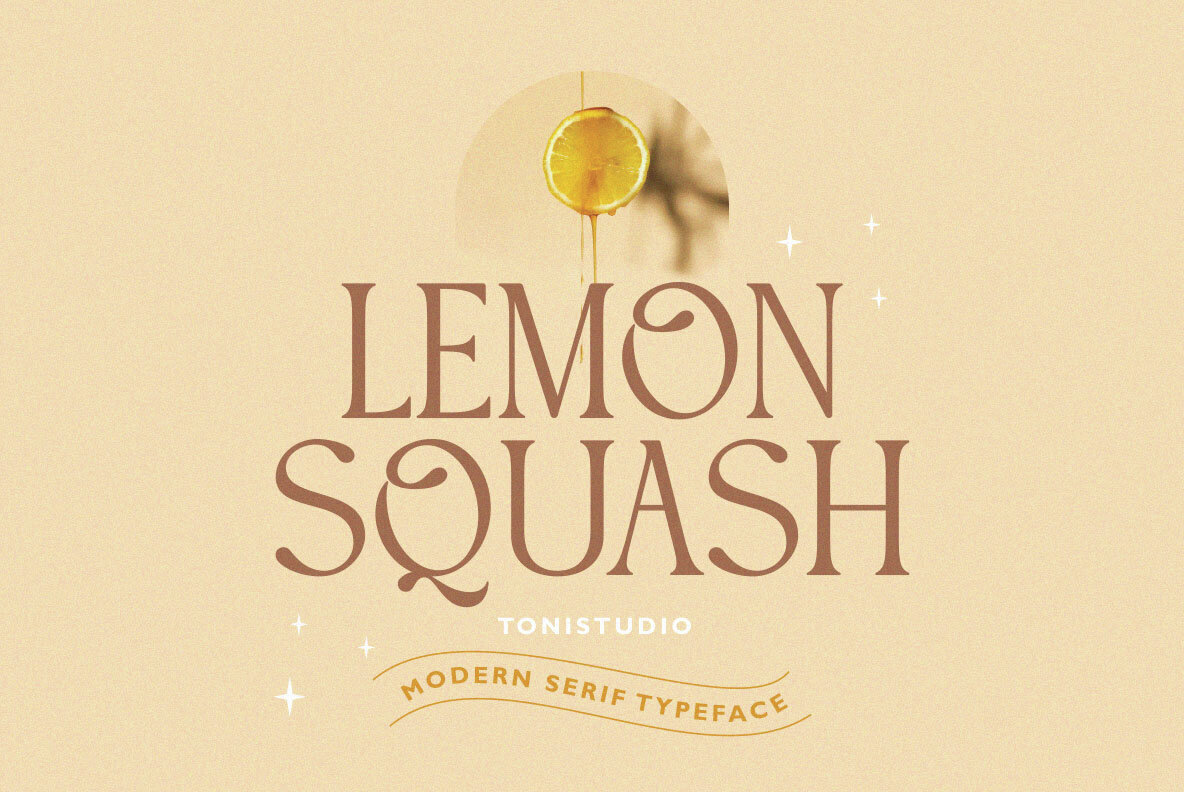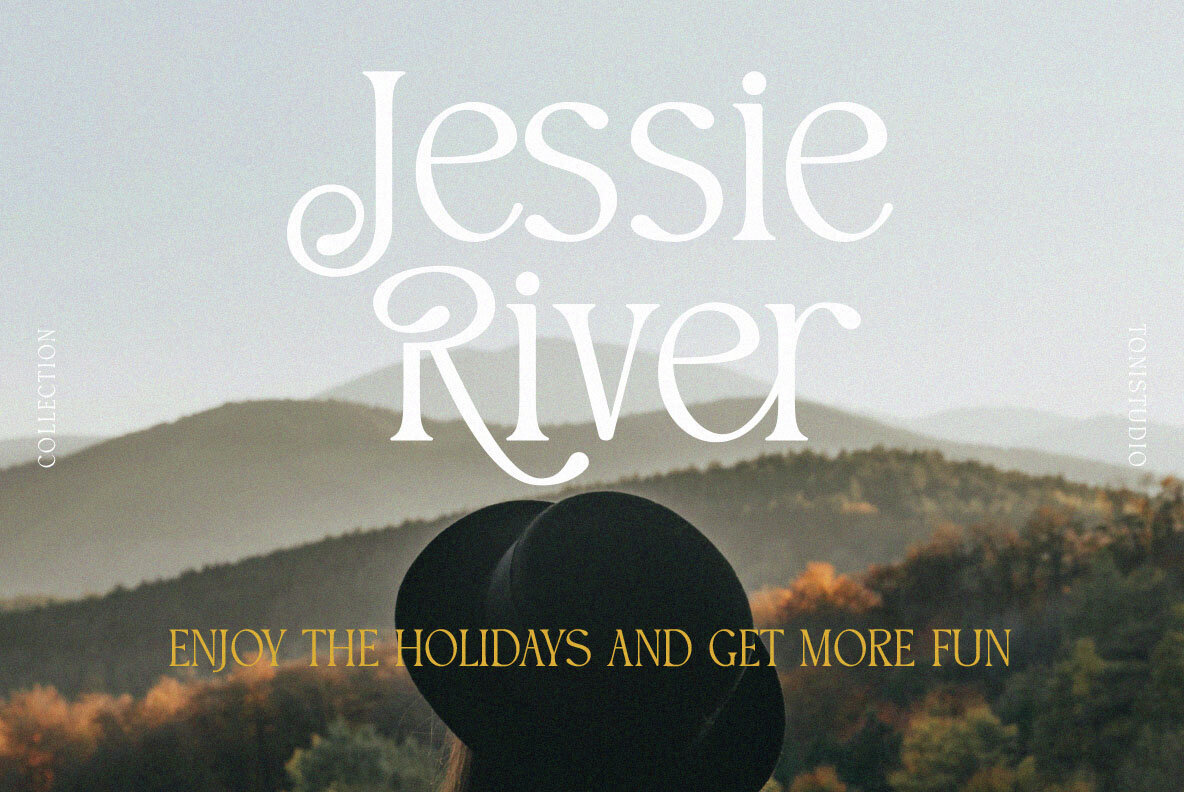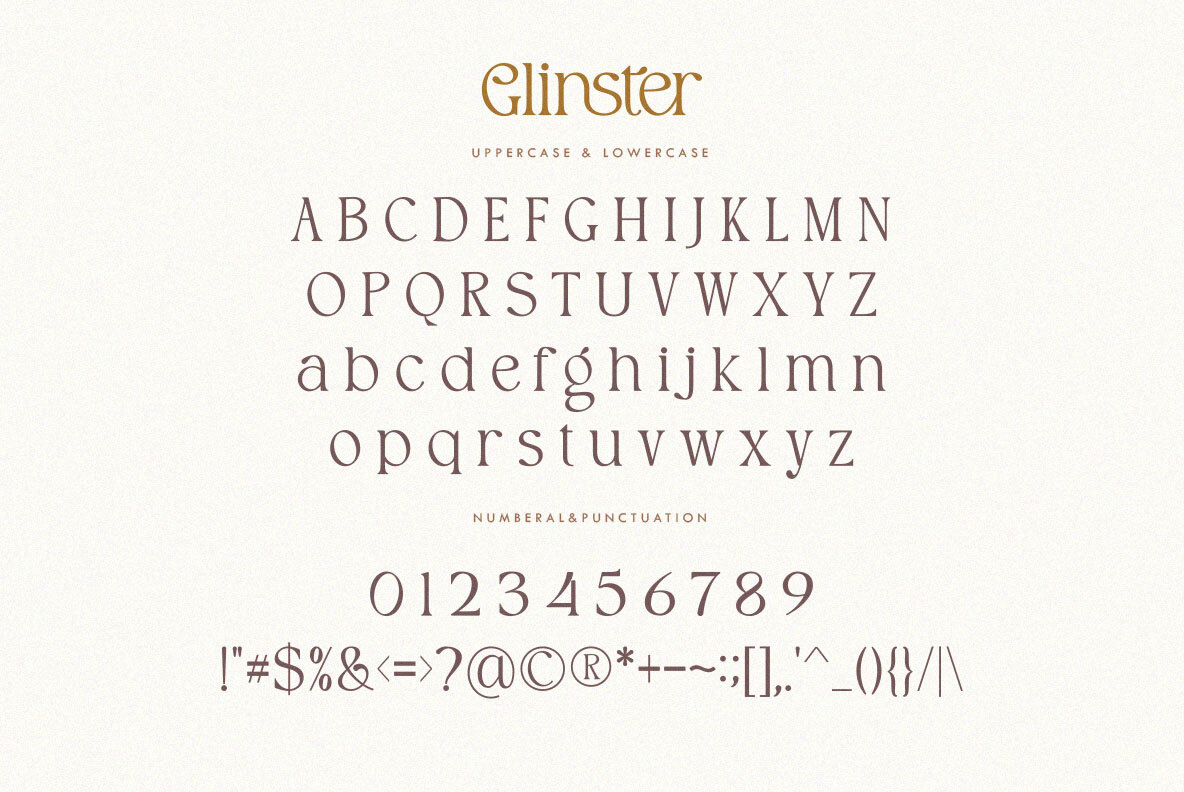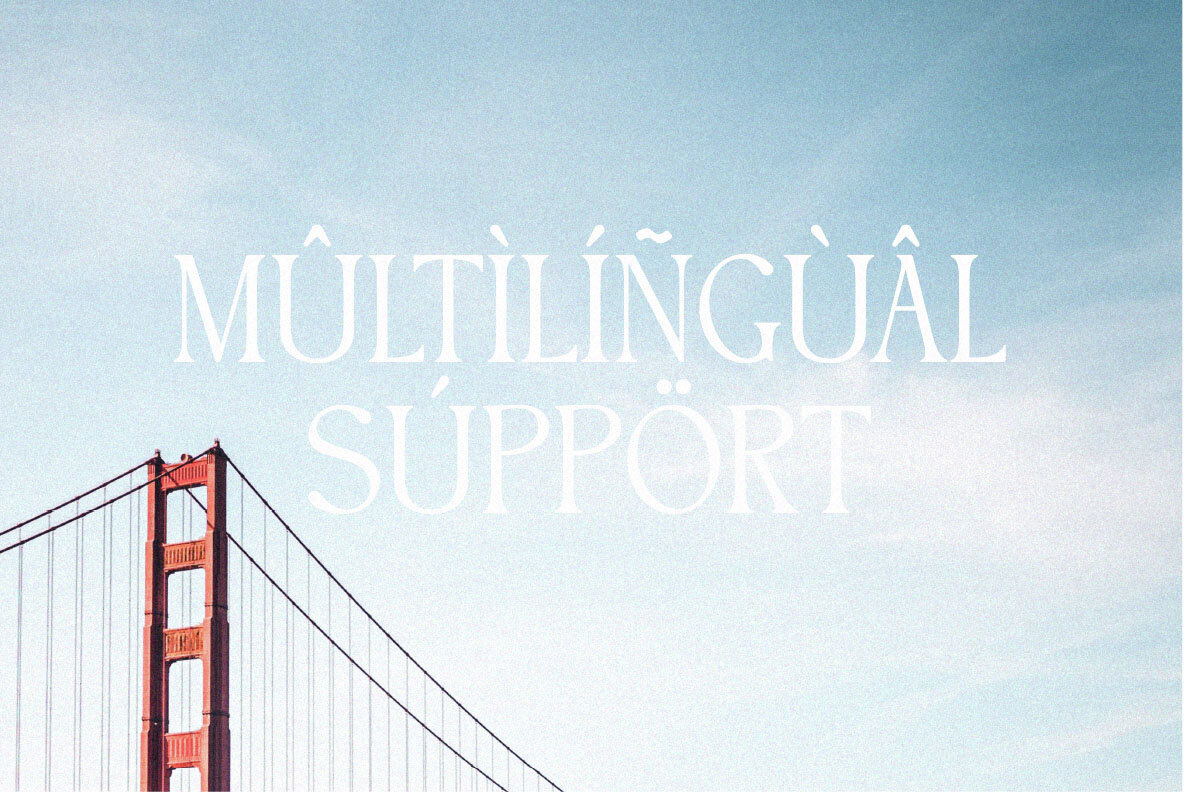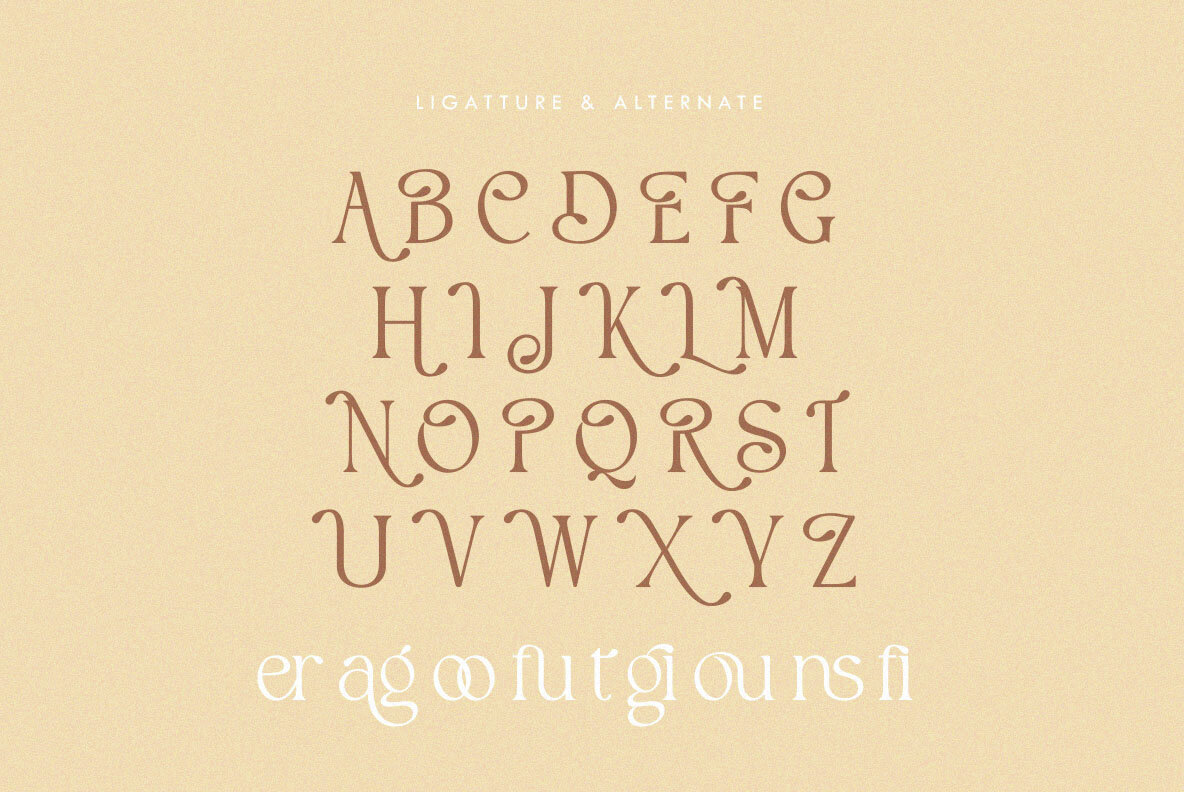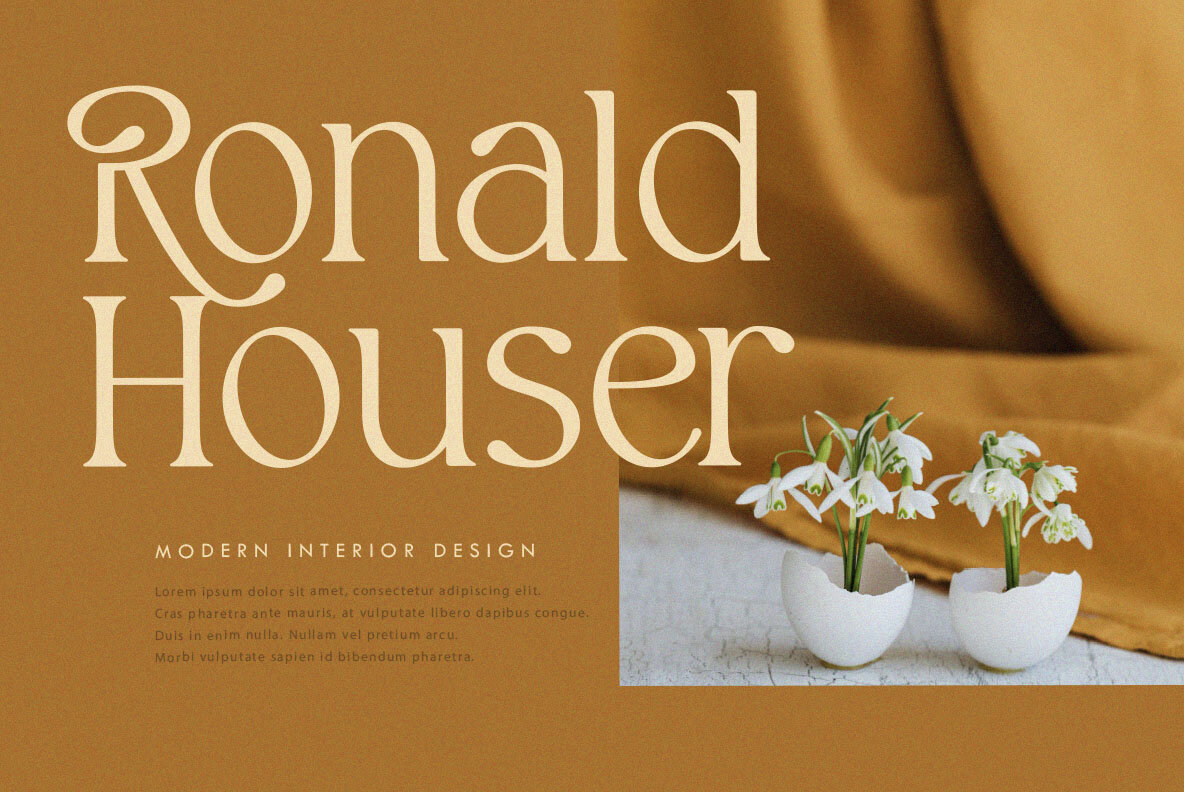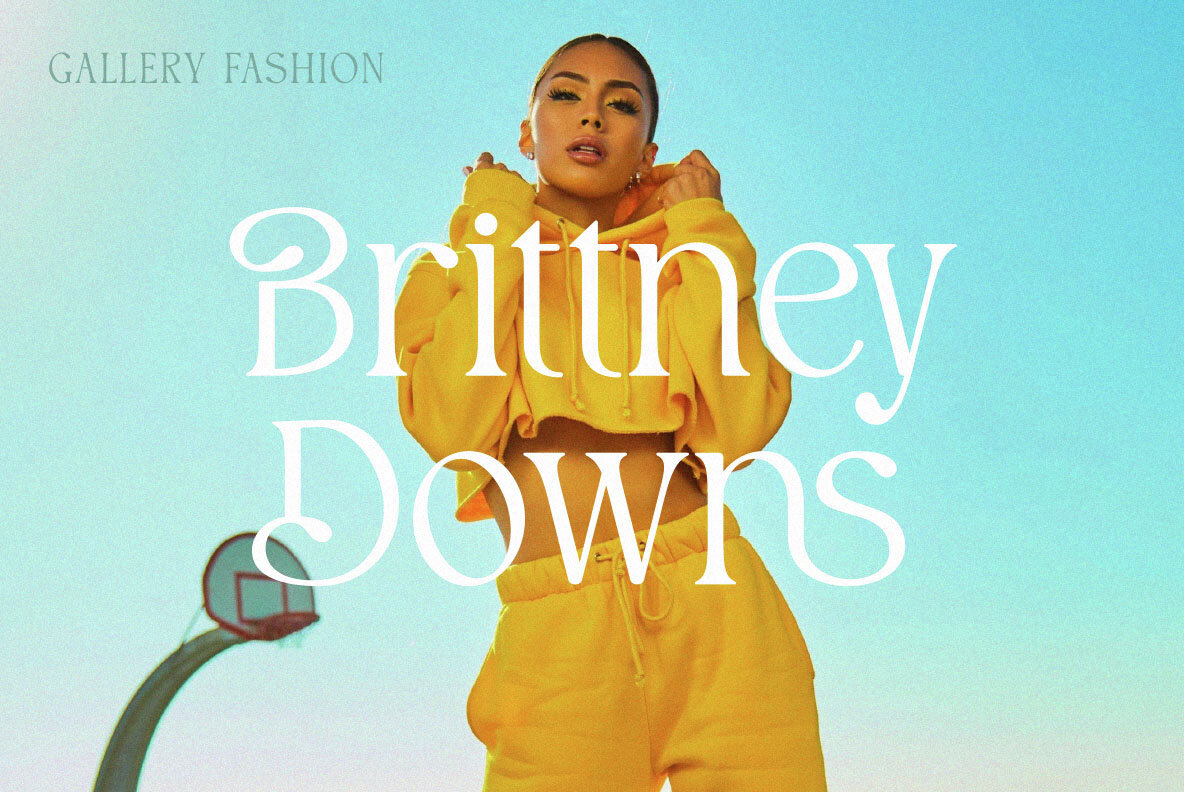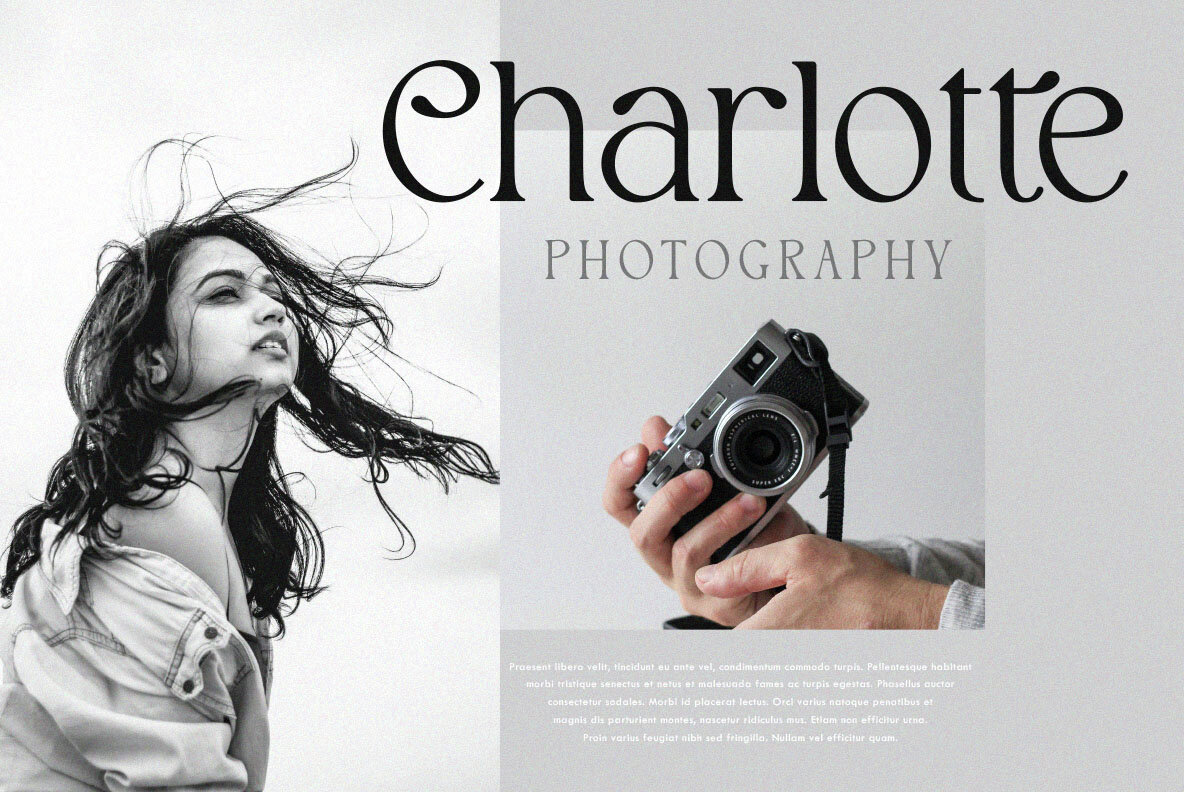
Glinster Font
Glinster
Glinster is a serif typeface that looks modern, elegant and luxurious. This font is very nostalgic and perfect for social media posts, logos, merchandise, book covers, posters, video content thumbnails, quotes, landing pages, wedding invitations and there's so much more you can create. It fits and is ready to be mixed for your next design! For those of you who need a touch of elegance, style, class, chic and modernity for your designs, this font is made for you!